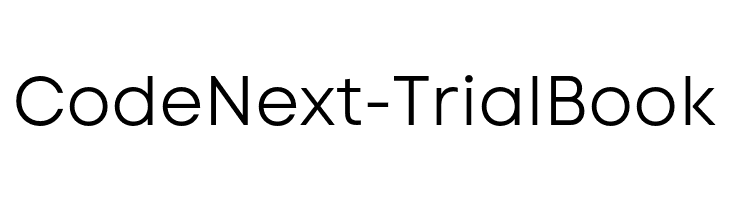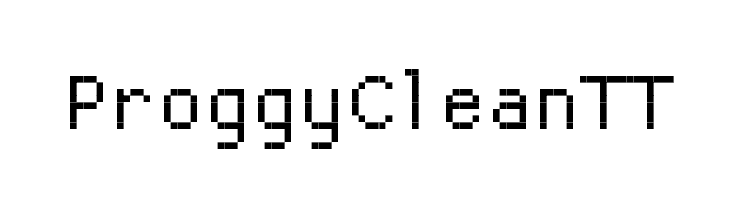
Bienvenue dans Polices Populaires — là où se rencontrent popularité et qualité. Voici les polices les plus téléchargées et utilisées cette année. Pour des choix sûrs (logos, web, social), commencez ici.
Chaque police phare se distingue par équilibre, lisibilité et polyvalence. Vous trouverez des sans‑serifs modernes, des scripts élégantes, des serifs vintage et des displays minimalistes.
A bold, expressive brush-style font with a handcrafted appearance.
A bold, organic font with playful, rounded characters and unique negative space.
A playful and elegant handwritten font with smooth, flowing lines.
A bold, angular font with a modern blackletter style.
A bold, layered font with a three-dimensional outline effect.
A modern serif font with bold, clean lines and a slightly condensed style.
A bold, handwritten-style font with expressive and fluid characters.
A futuristic, striped font with bold, geometric characters.
A bold, festive font with Santa illustrations on each letter.
A modern, geometric font with clean lines and minimalistic design.
A graceful and sophisticated script font with flowing, interconnected letters and elegant swashes.
A bold, geometric font with a futuristic and commanding design.
A playful and elegant script font with flowing, cursive letterforms.
A bold, playful font with a hand-drawn, textured appearance, ideal for children's themes.
A whimsical, floral-themed decorative font with bold, rounded strokes.
A bold, 3D italic font with geometric and futuristic design.
A bold, angular font with a gothic-inspired, geometric design.
Playful and quirky handwritten font.
An elegant, flowing script font with smooth, cursive letterforms and decorative flourishes.
A bold, brush-style font with a hand-drawn, dynamic appearance.
A bold, geometric font with a pixelated, digital aesthetic.
A modern, decorative font with interconnected, flowing characters.
A bold, playful, and hand-drawn font with irregular, artistic characters.
A dripping, liquid-like font with a bold, eerie style.